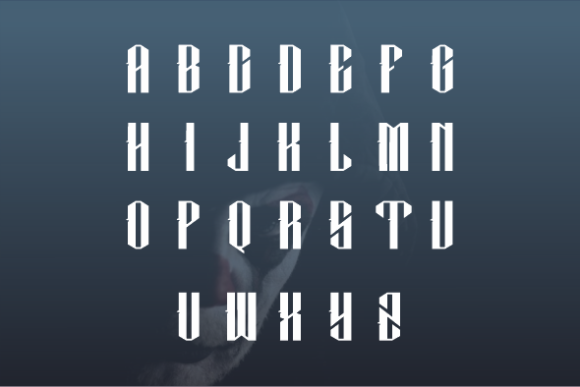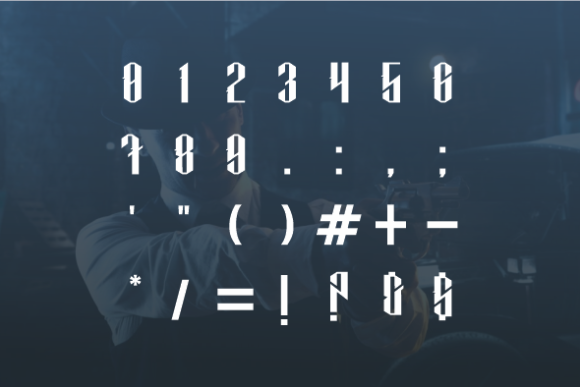
Introducing Buggybased Font: The Ultimate Bold Display Font for Designers and Crafters
Are you tired of using the same old fonts for your designs and crafts? Look no further! Buggybased Font is here to revolutionize your creative projects with its bold and thick lettered display font. This versatile font is perfect for adding a bold touch to your headlines, logos, branding, and any other creation that requires a statement piece.
What is Buggybased Font?
Buggybased Font is a carefully crafted display font that boasts a unique blend of boldness and thickness. Its distinctive lettering style makes it stand out from the crowd, allowing designers and crafters to add a personal touch to their work. Whether you’re creating a logo, headline, or branding material, Buggybased Font is the perfect choice.
Key Features of Buggybased Font
- Bold and Thick Lettering: Buggybased Font features bold and thick letters that make a statement. Its chunky design ensures that your text stands out, grabbing the attention of your audience.
- Versatile: This font is incredibly versatile, allowing you to combine it in various ways to suit your design needs. Experiment with different colors, sizes, and styles to create a unique look.
- Easy to Read: Despite its bold design, Buggybased Font remains easy to read, making it perfect for headlines, titles, and short phrases.
- High-Quality: Buggybased Font is a high-quality font designed to deliver crisp and clear results, even at large sizes.
Use Cases for Buggybased Font
Buggybased Font is an excellent addition to any design or crafting project that requires a bold touch. Here are some use cases to get you started:
- Headlines and Titles: Use Buggybased Font to create eye-catching headlines and titles that demand attention.
- Logos and Branding: Create a lasting impression with Buggybased Font, perfect for logos, business cards, and other branding materials.
- Posters and Flyers: Add a bold touch to your posters and flyers with Buggybased Font, ensuring your message stands out.
- Social Media Graphics: Elevate your social media graphics with Buggybased Font, making your content more engaging and shareable.
Tips for Using Buggybased Font
To get the most out of Buggybased Font, here are some expert tips:
- Experiment with Colors: Try pairing Buggybased Font with different colors to create a unique and eye-catching design.
- Mix and Match: Combine Buggybased Font with other fonts to create a distinctive look that reflects your brand or personal style.
- Keep it Simple: Don’t overcomplicate your design. Buggybased Font is bold and attention-grabbing, so keep your message clear and concise.
| Author | Sacramental |
Buggybased Font is a game-changing display font that offers a bold and thick lettered design, perfect for designers and crafters looking to add a statement piece to their work. With its versatility, ease of use, and high-quality design, Buggybased Font is an excellent addition to any creative project. So why wait? Download Buggybased Font today and take your designs to the next level!
Whether you’re a seasoned designer or a crafting enthusiast, Buggybased Font is sure to inspire your creativity and help you create stunning designs that leave a lasting impression. So go ahead, get creative, and show off your unique style with Buggybased Font!